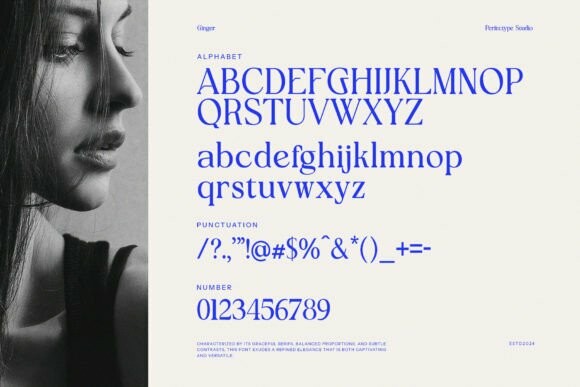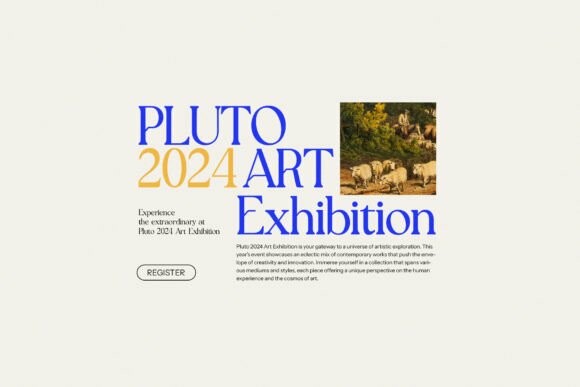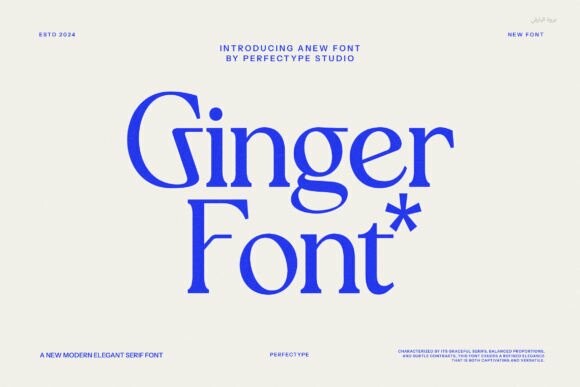
Ginger Typeface
Designer: Perfectype
Ginger Typeface, this type of serif font is made with elegance and luxury so it is very suitable for all your design uses. This type of font is very suitable for your various needs such as branding projects, logos, social media posts, advertisements, labels, product packaging, photography, wedding designs, watermarks, invitation product designs, stationery, and any project, created at a high level legibility.